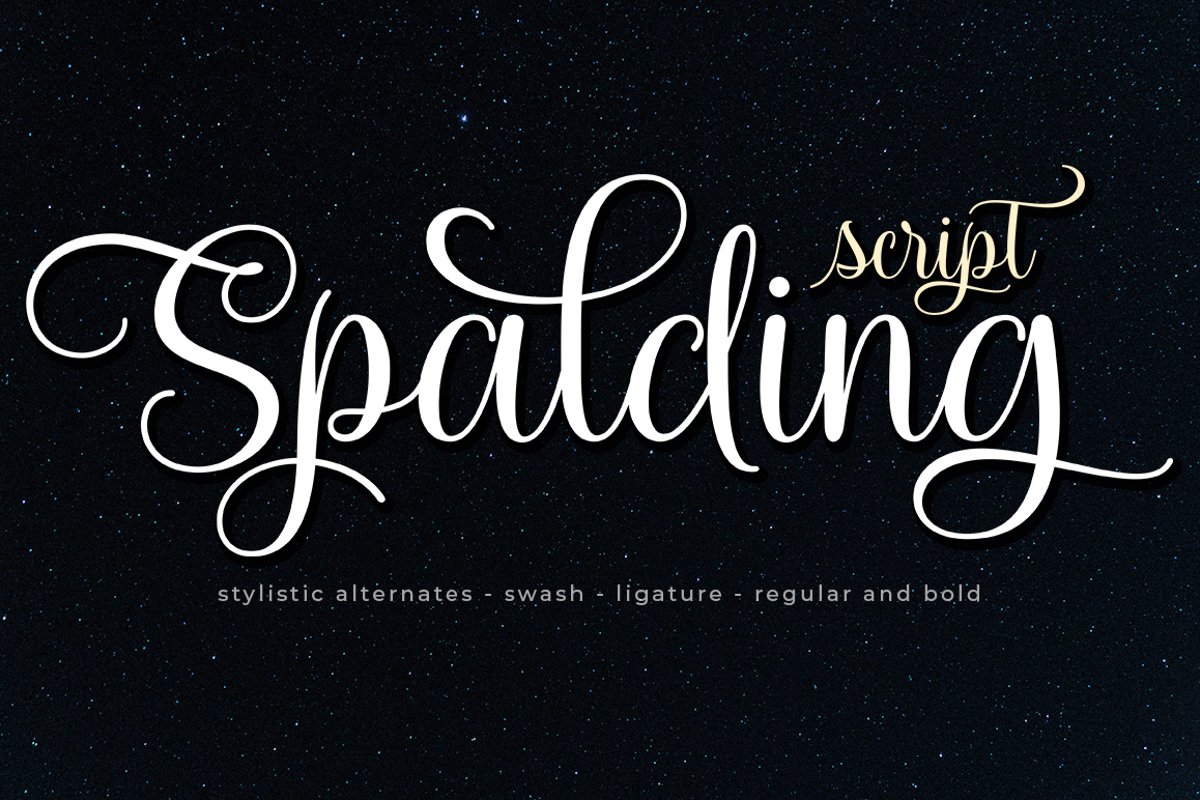
Spalding Script
Spalding Bold
Spalding Script is a new modern script font with an irregular base line. With its trendy and feminine style, Spalding Script looks beautiful on wedding invitations, thank you cards, quotes, greeting cards, logos, business cards, and more. Includes beginning and end letters, alternatives and support for many languages.